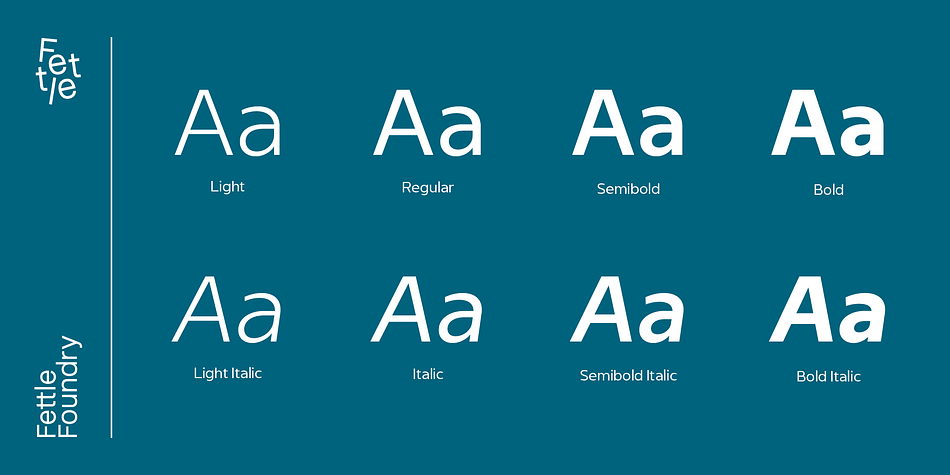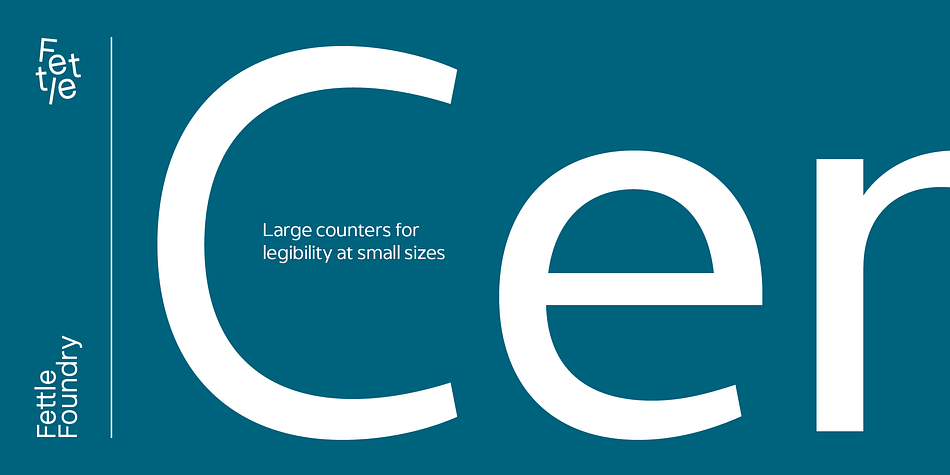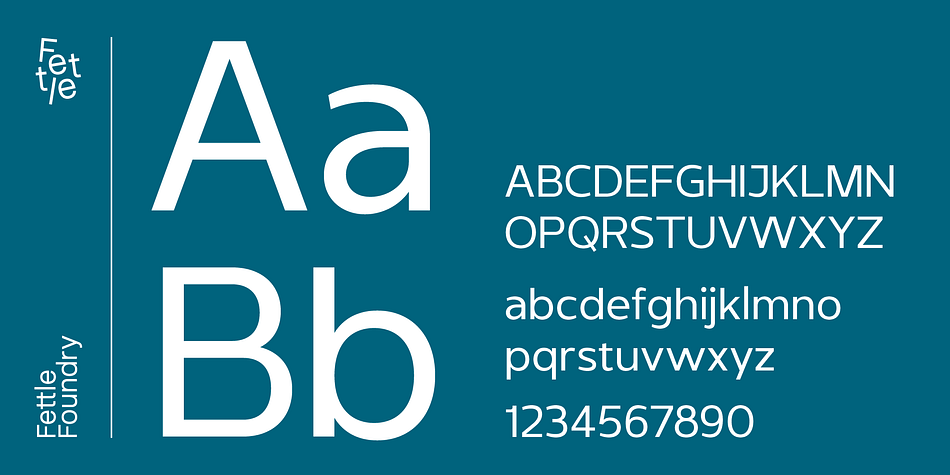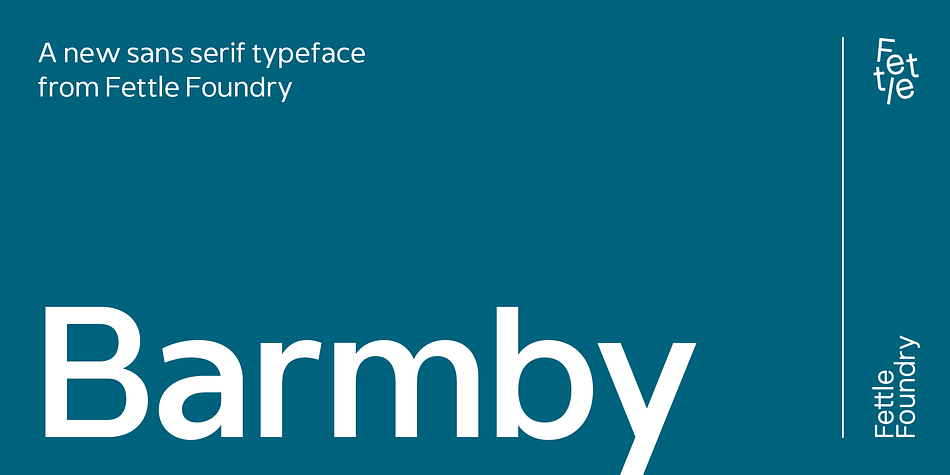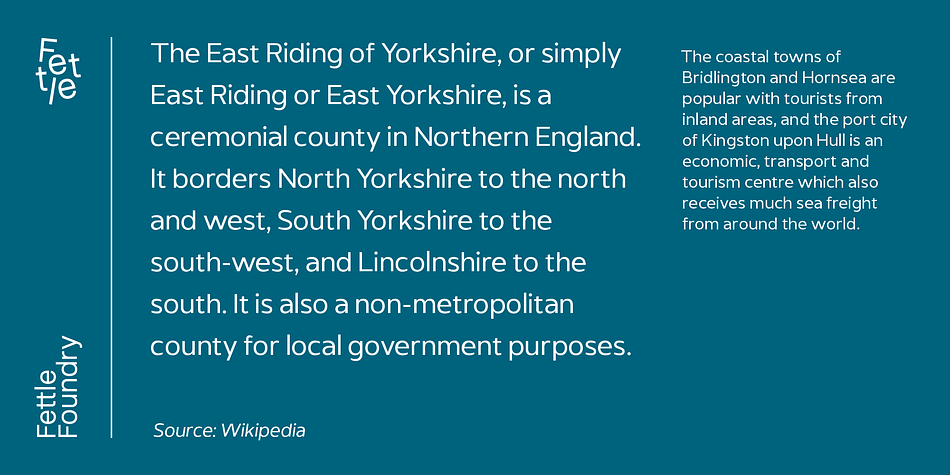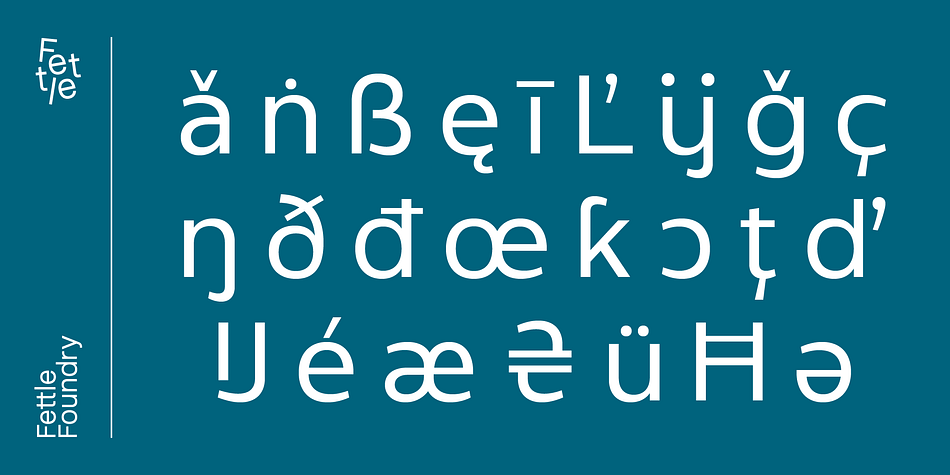
Barmby is a sans serif font family. This typeface has eight styles and was published by Fettle Foundry.
Barmby is a humanist-inspired sans serif typeface designed for legibility at a range of sizes – from text to display. Characters have been designed with a large X-height, wide counters and horizontal stress to maximise white space at all levels of use.
Barmby would be perfect as a brand typeface due to its versatile nature.
Featuring over 600 glyphs – based upon a full Latin S character set – Barmby supports a wide range of Latin languages. Opentype features include: alternatives, combining features, inferior and superior numbers, fractions, ordinals, and more.